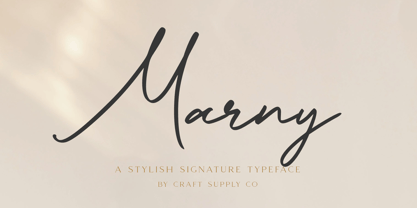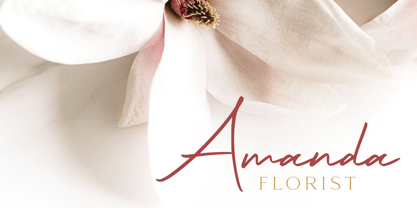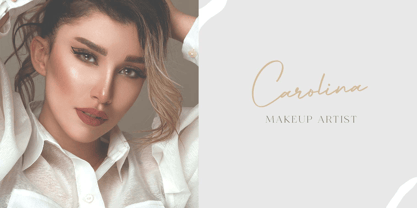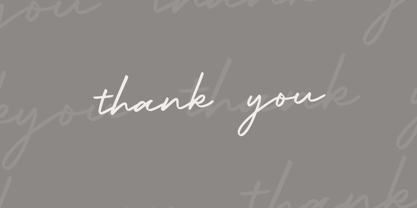
Marny
by Craft Supply Co
The Marny Font Family was designed by Trio Nazzar Saputra, Wahyu Hadi Yuana and published by Craft Supply Co. Marny contains 2 styles and family package options. More about this family
Introducing New Font : Marny – Stylish Signature Typeface Marny – Stylish Signature Typeface is a digital script typeface influenced by signature ambience. Marny – Stylish Signature Typeface will work perfectly for fashion, e-commerce brands, trend blogs, wedding boutiques or any business that wants to appear upscale and chic. Marny – Stylish Signature Typeface also Suitable for Logo, greeting cards, quotes, posters, branding, name card, stationary, design title, blog header, art quote, typography, art, modern envelope lettering or book design, happening style like handdrawn design or watercolor design theme, craft design, any DIY project, book title, or any purpose to make your art/design project look pretty and trendy.
Designers: Trio Nazzar Saputra, Wahyu Hadi Yuana
Foundry: Craft Supply Co